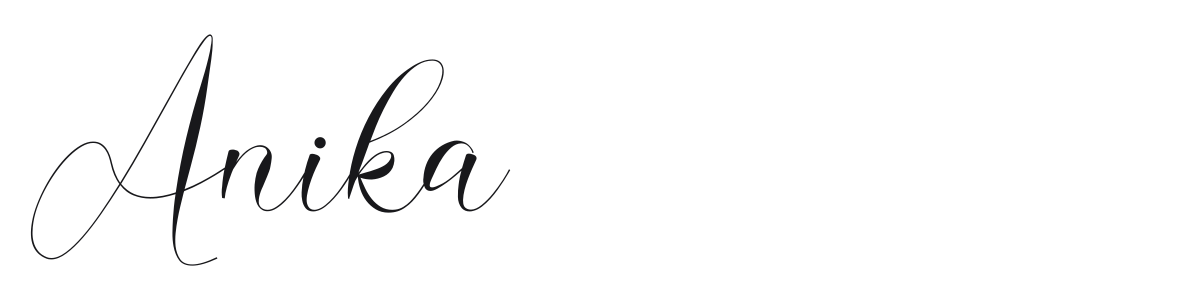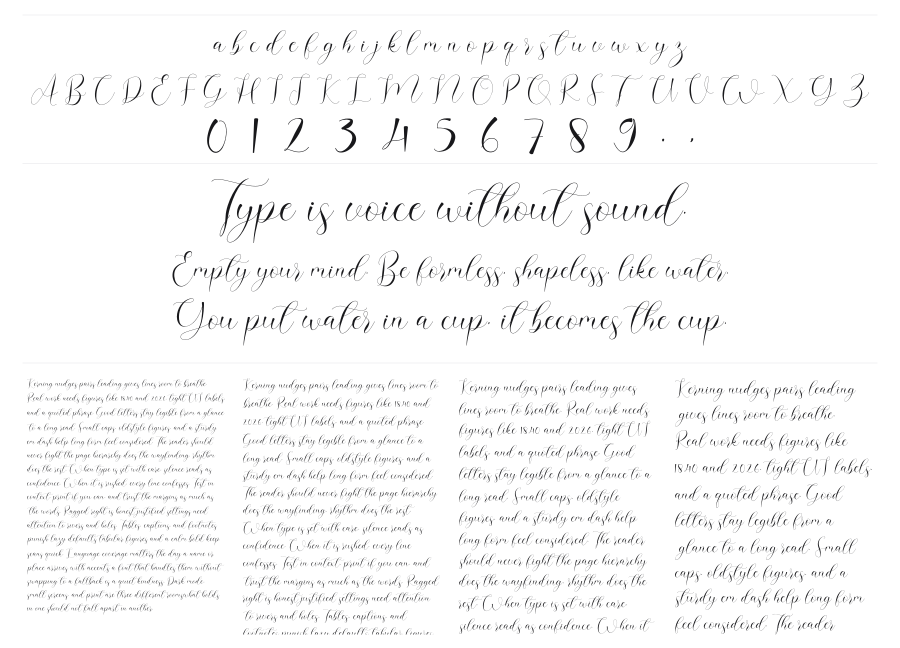
Anika
by Nabila
Anika is a flowing formal script with high stroke contrast and sweeping calligraphic curves rooted in copperplate tradition. Generous loops on the ascenders and descenders give it an airy, romantic rhythm that works especially well in wedding and bridal contexts. It carries the handcrafted warmth of pen-on-paper without feeling stiff.